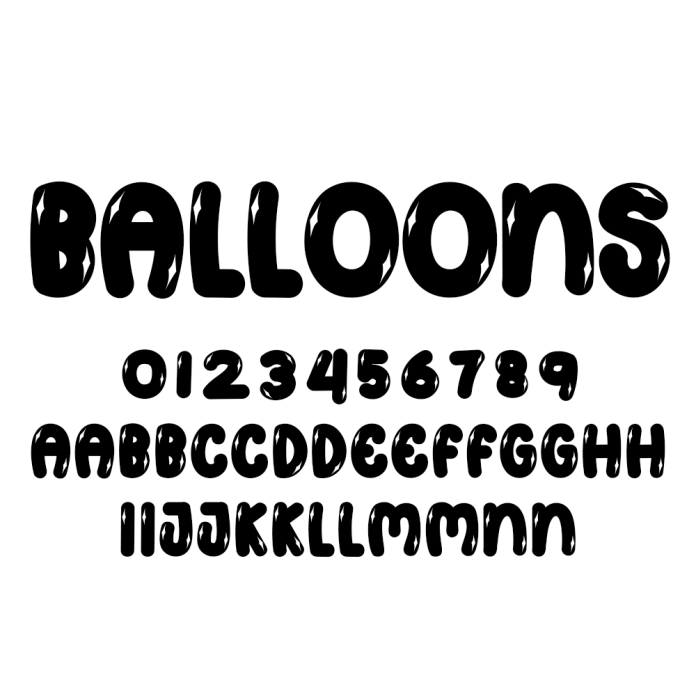
Balloons Font is a cute handwritten font, carefully handcrafted to become a true favorite. It maintains its classy calligraphic influences while feeling contemporary and fresh. This versatility will appeal to a wide range of crafty ideas, from letterheads and titles, to stationery.